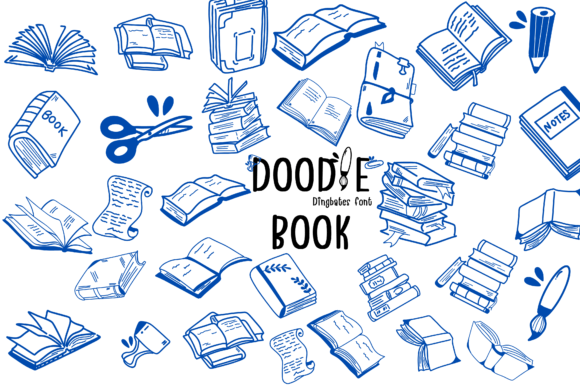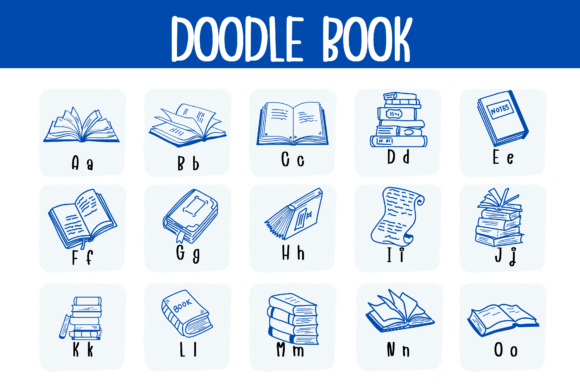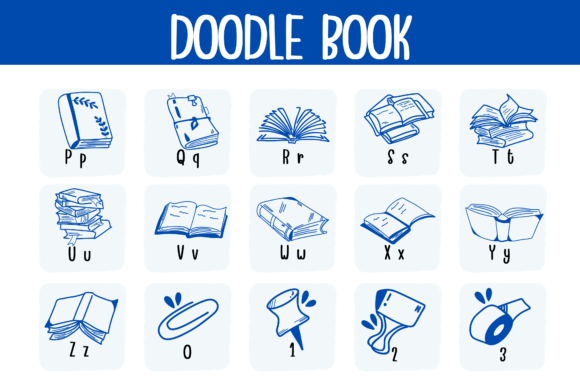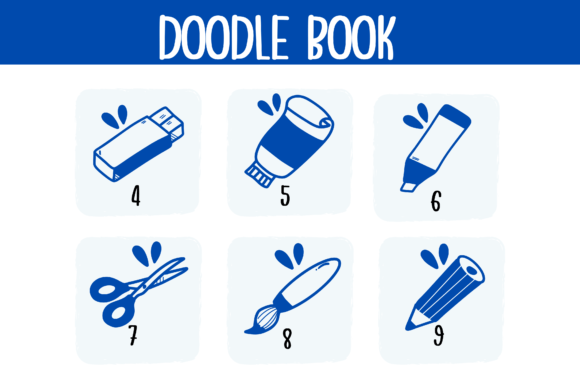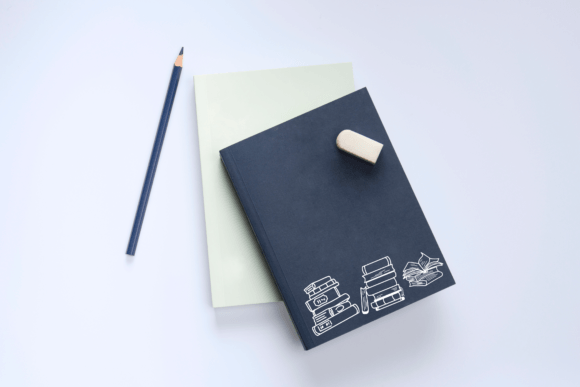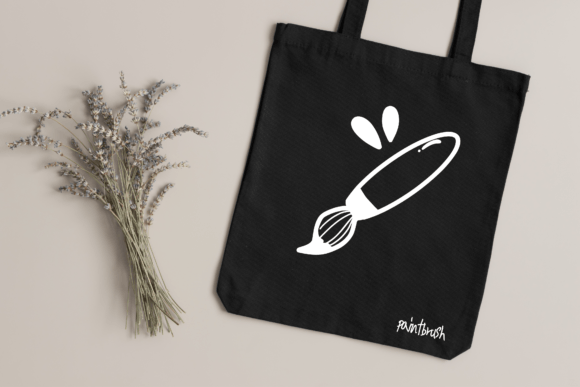
Unleash Your Creativity with Doodle Book Font
Have you ever sat with a blank page, a pencil, and an idea that just wouldn’t come to life? The frustration and the excitement of not knowing what’s possible is a familiar feeling for many creatives. But what if you had the right tools to bring your imagination to life? That’s where Doodle Book Font comes in – a unique dingbats font that’s about to revolutionize the way you think about typography.
This charming font is designed to add a touch of whimsy and personality to any project. Whether you’re a designer, crafter, or simply someone who loves to create, Doodle Book Font is the perfect companion to help you express your artistic vision. With its hand-drawn aesthetics and individualistic style, this font is a game-changer for anyone looking to stand out from the crowd.
Doodle Book Font Key Features
- Unique Hand-Drawn Style: Features a distinctive, hand-drawn aesthetic with imperfections and quirks, adding a personal touch to digital designs.
Doodle Book Font Review
I recently had the chance to work with the Doodle Book Font, and I must say it’s a unique addition to any design project. ✨ The font’s playful and whimsical feel makes it perfect for creating a childlike or vintage aesthetic in your designs.
Here are some of the things that I liked about the Doodle Book Font:
- ✨ The font is highly customizable, allowing you to adjust the line width, spacing, and even the color of the doodles.
- ✨ It’s incredibly versatile and can be used for a wide range of designs, from greeting cards to children’s books.
- ✨ The font is well-optimized for digital use and works seamlessly in various software and platforms.
- ⚠️ The font may not be suitable for all types of designs, particularly those that require a more formal or professional tone.
- ⚠️ The font’s customization options can be overwhelming for beginners, so be prepared to spend some time getting familiar with the settings.
- ⚠️ Some users may find the font’s doodles to be a bit too simple or repetitive, which can limit its creative potential.
Overall, I would say that the Doodle Book Font is a great addition to any designer’s toolkit, but it’s not a one-size-fits-all solution. With its unique style and customization options, it’s perfect for projects that require a playful and whimsical touch.
Tips for Getting the Most Out of Doodle Book Font
Some tips to help you get the most out of Doodle Book Font include:
– Experimenting with different doodle effects and styles to add visual interest to your text.
– Using the font in combination with other design elements, such as illustrations and graphics, to create a cohesive look.
– Adjusting the font size and color to suit your design needs.
Some common use cases for Doodle Book Font include:
– Creating whimsical and playful designs, such as children’s books and party invitations.